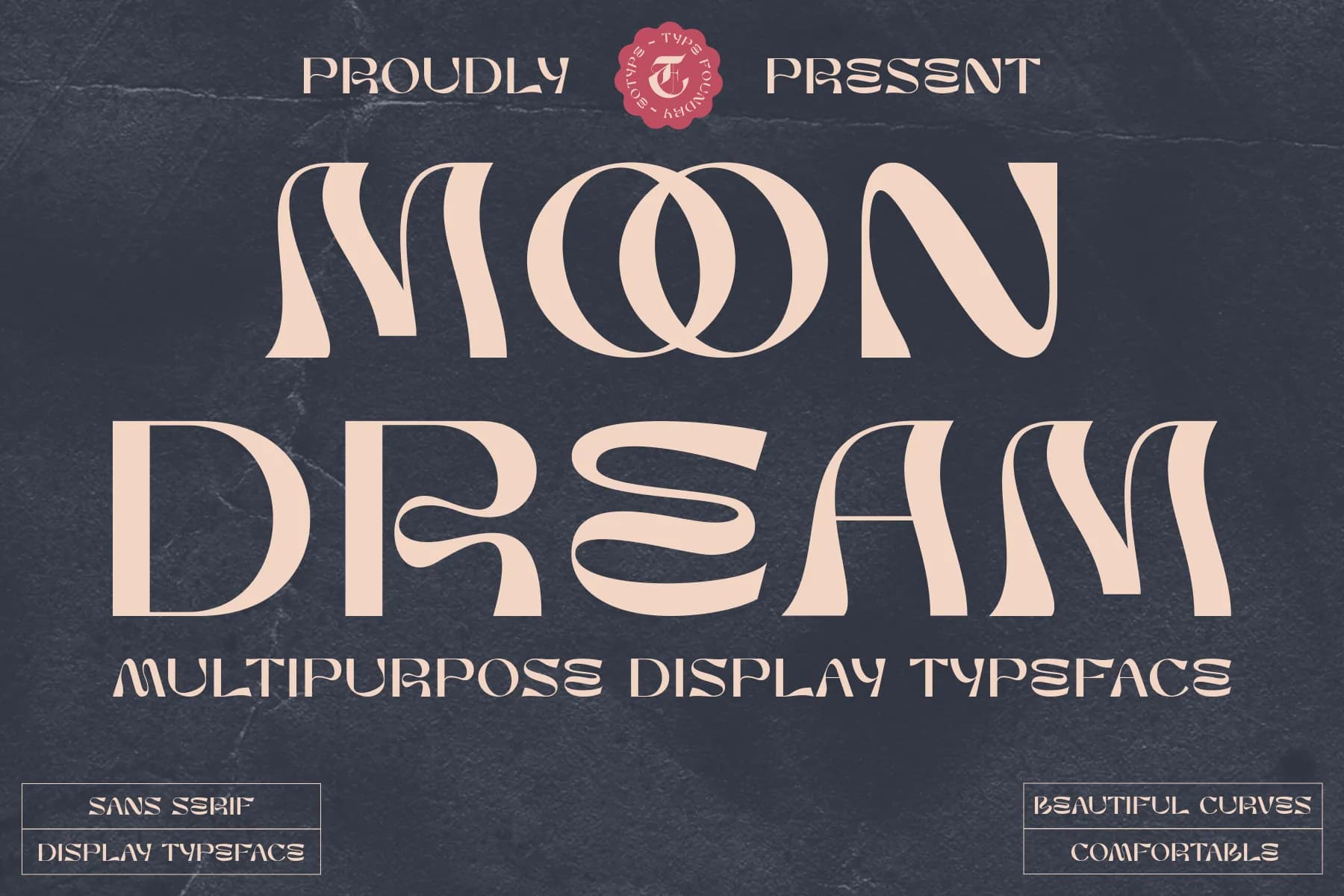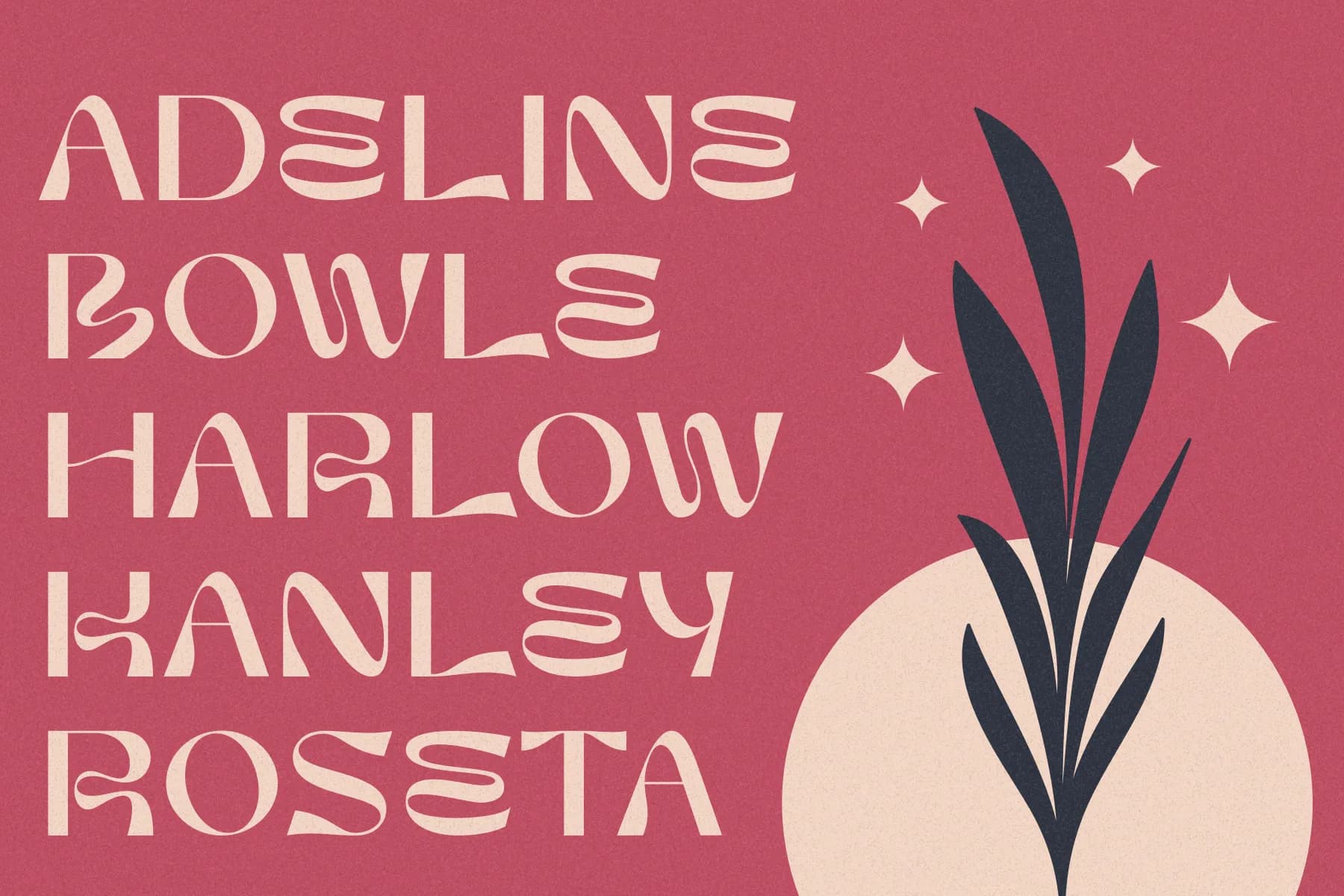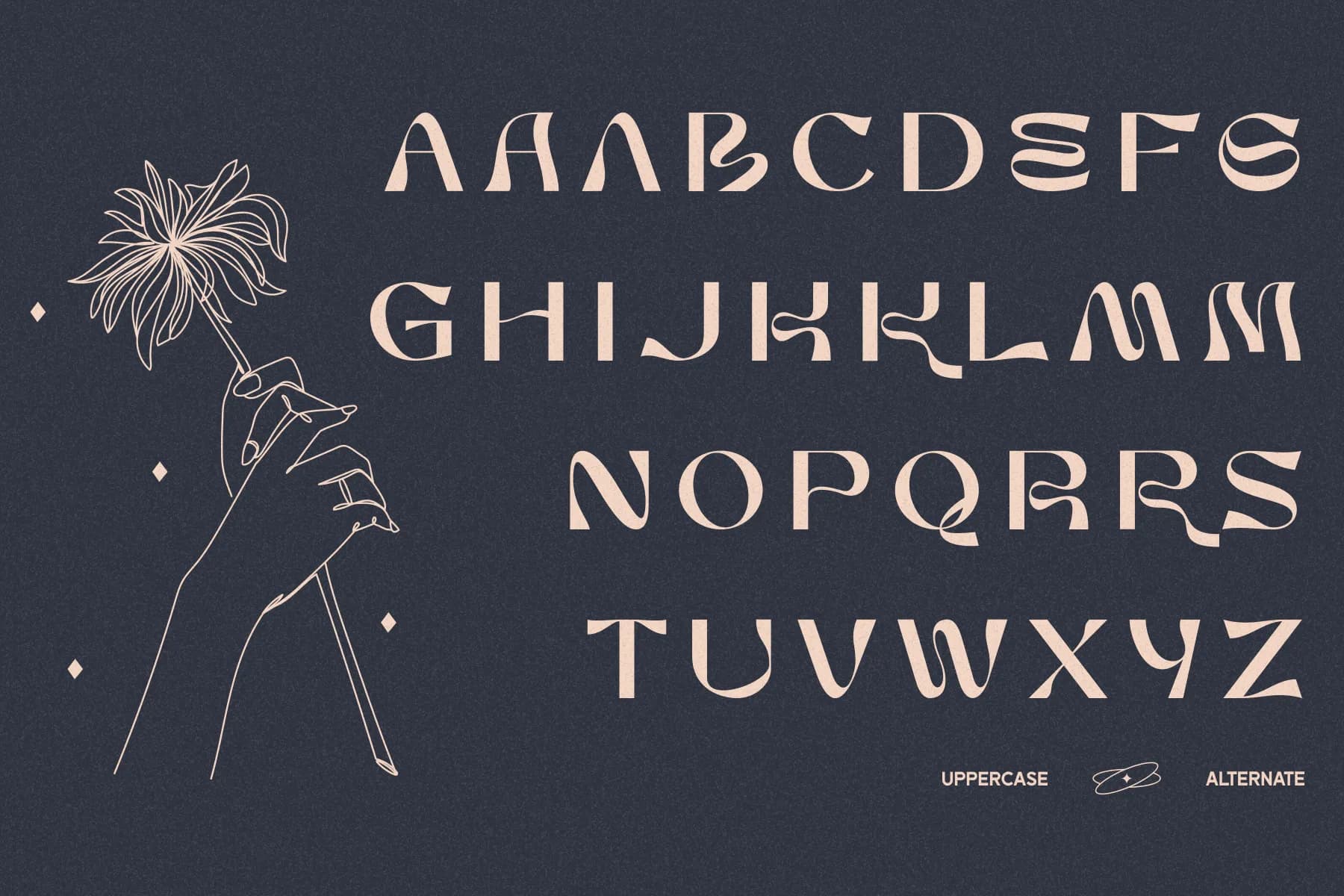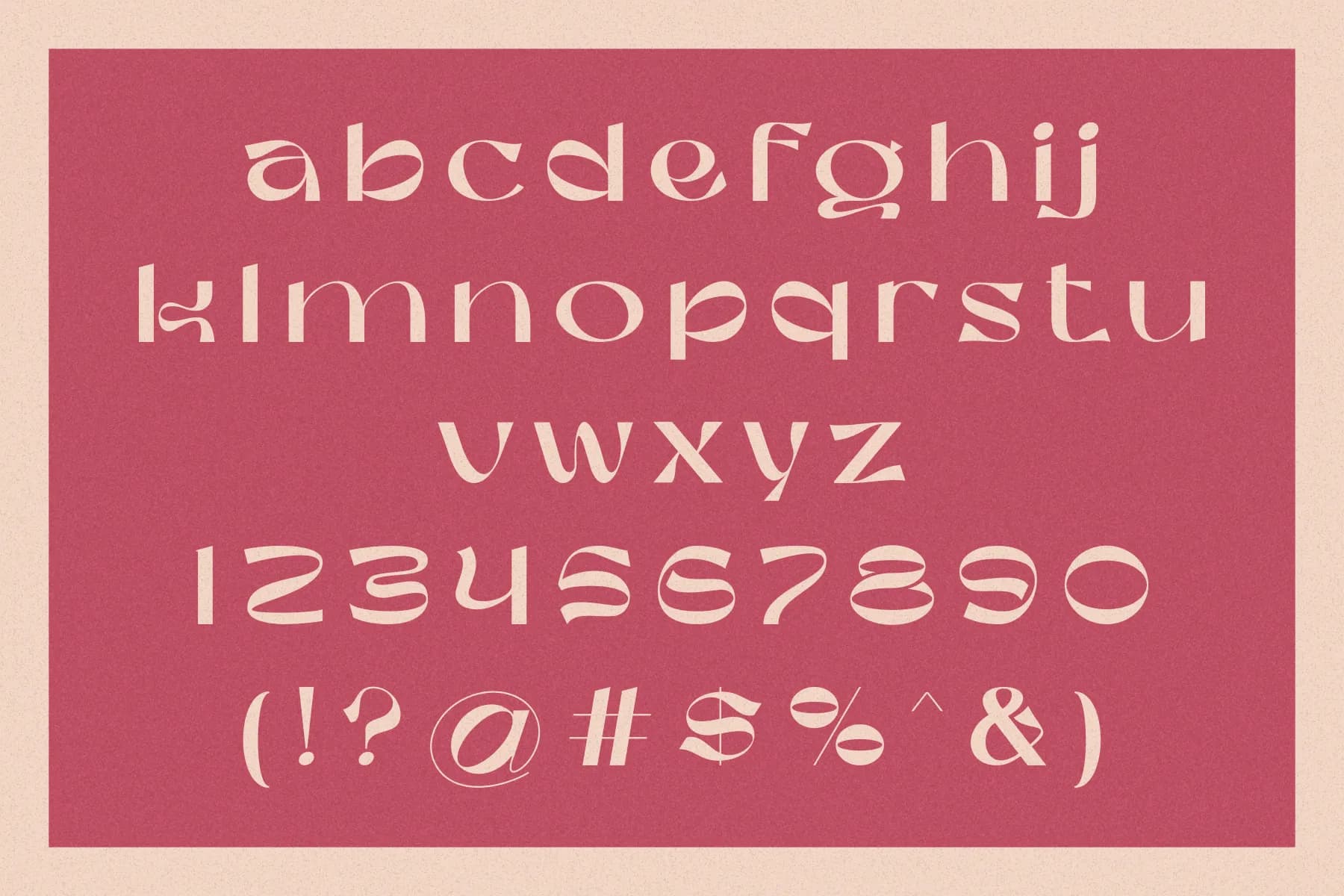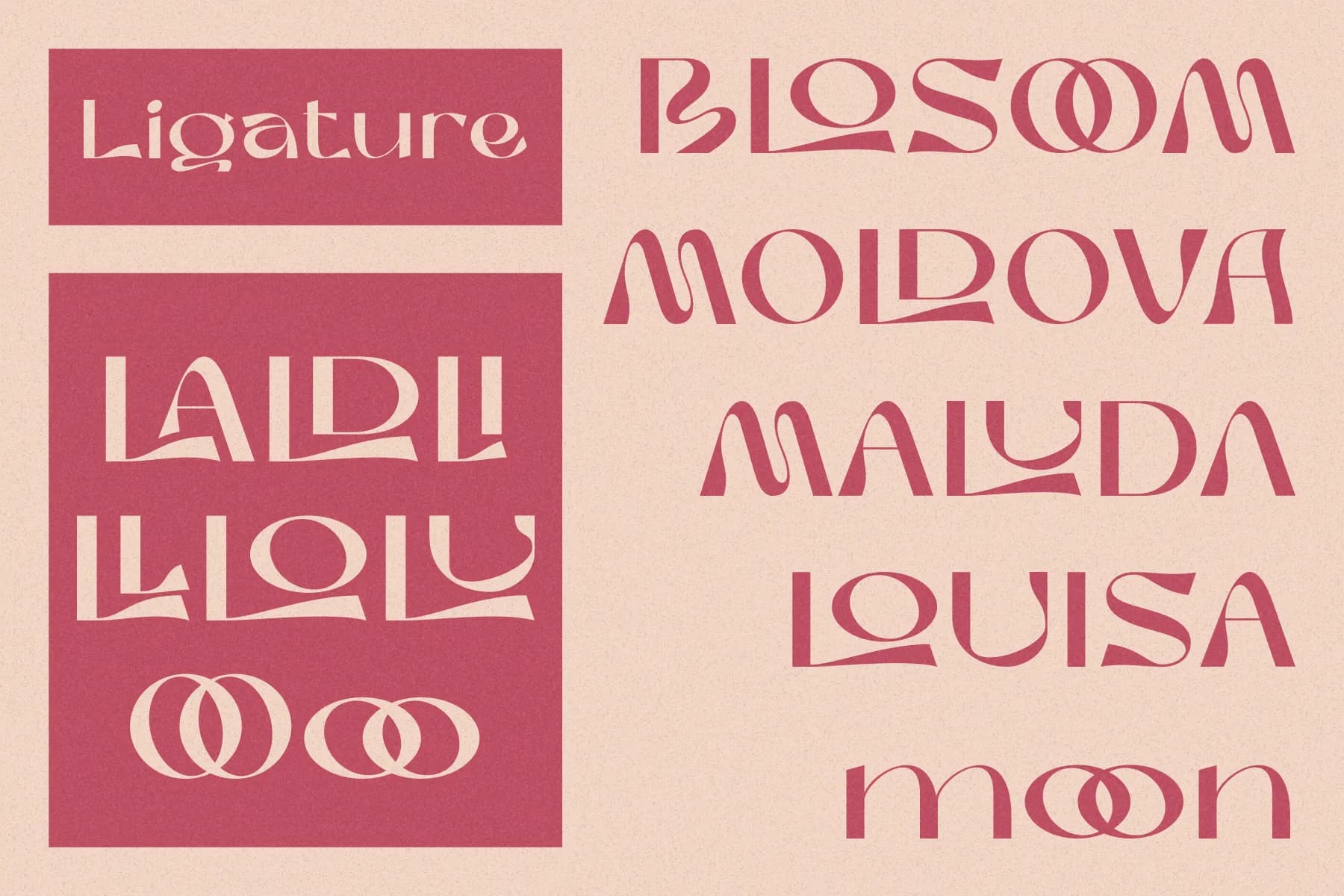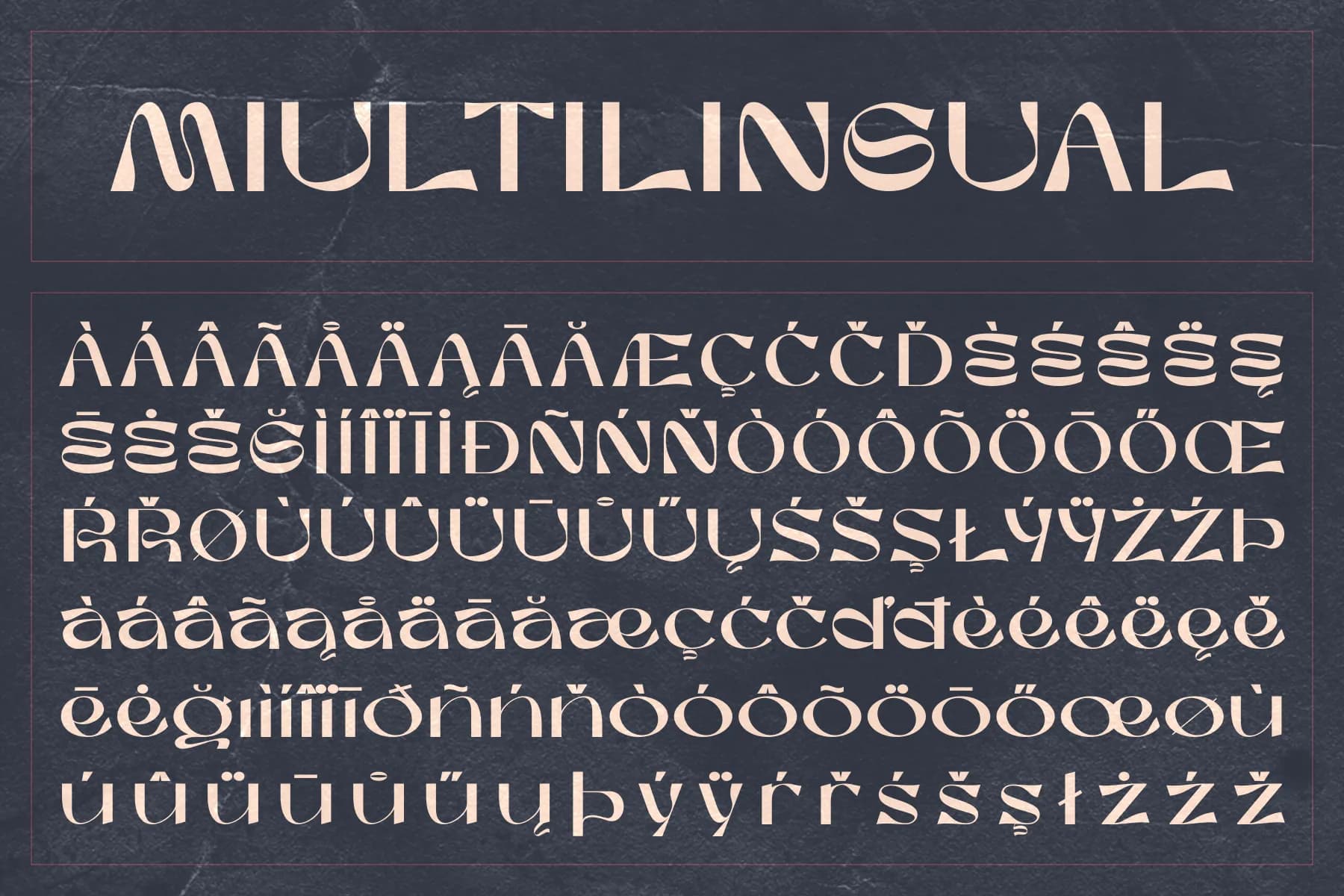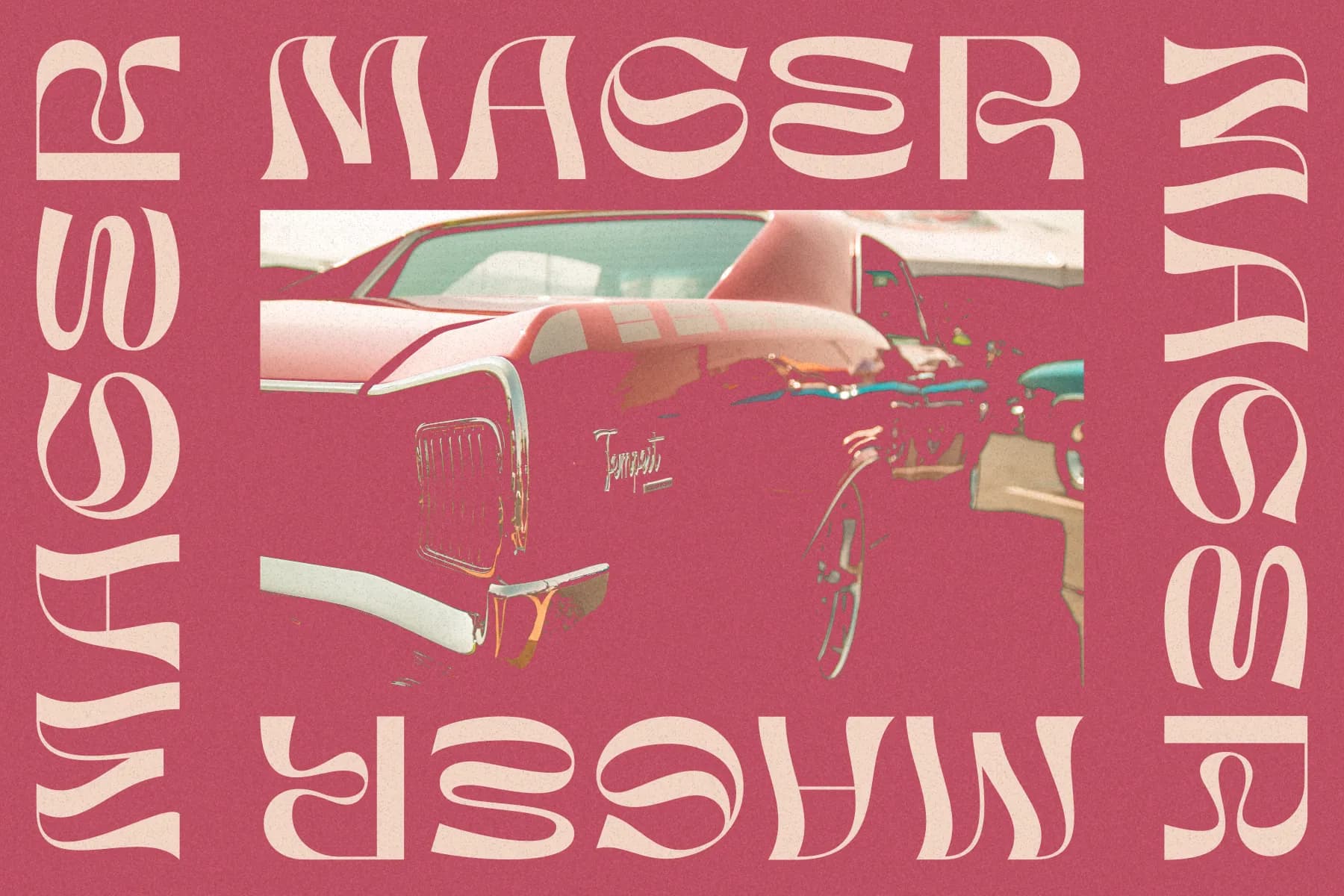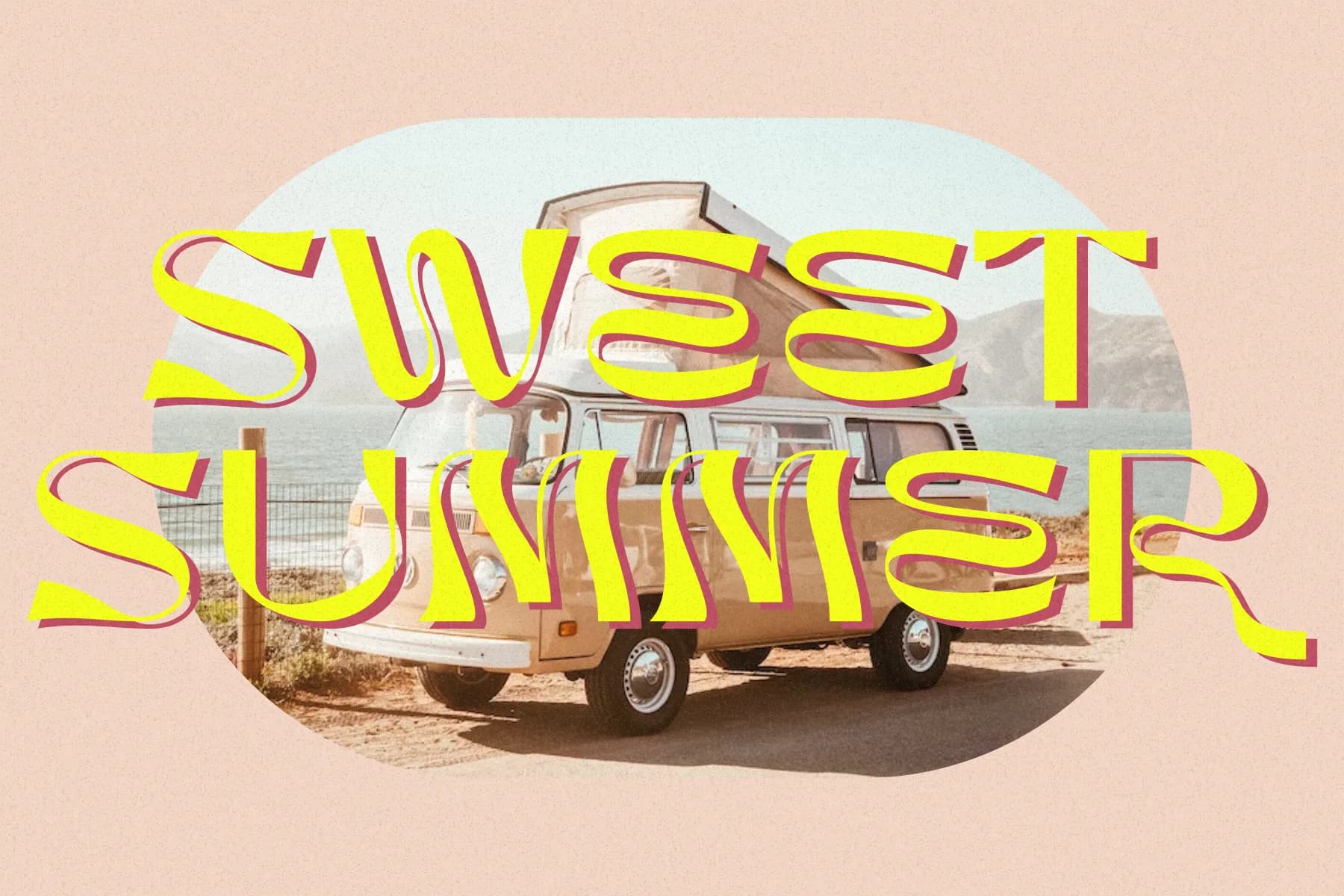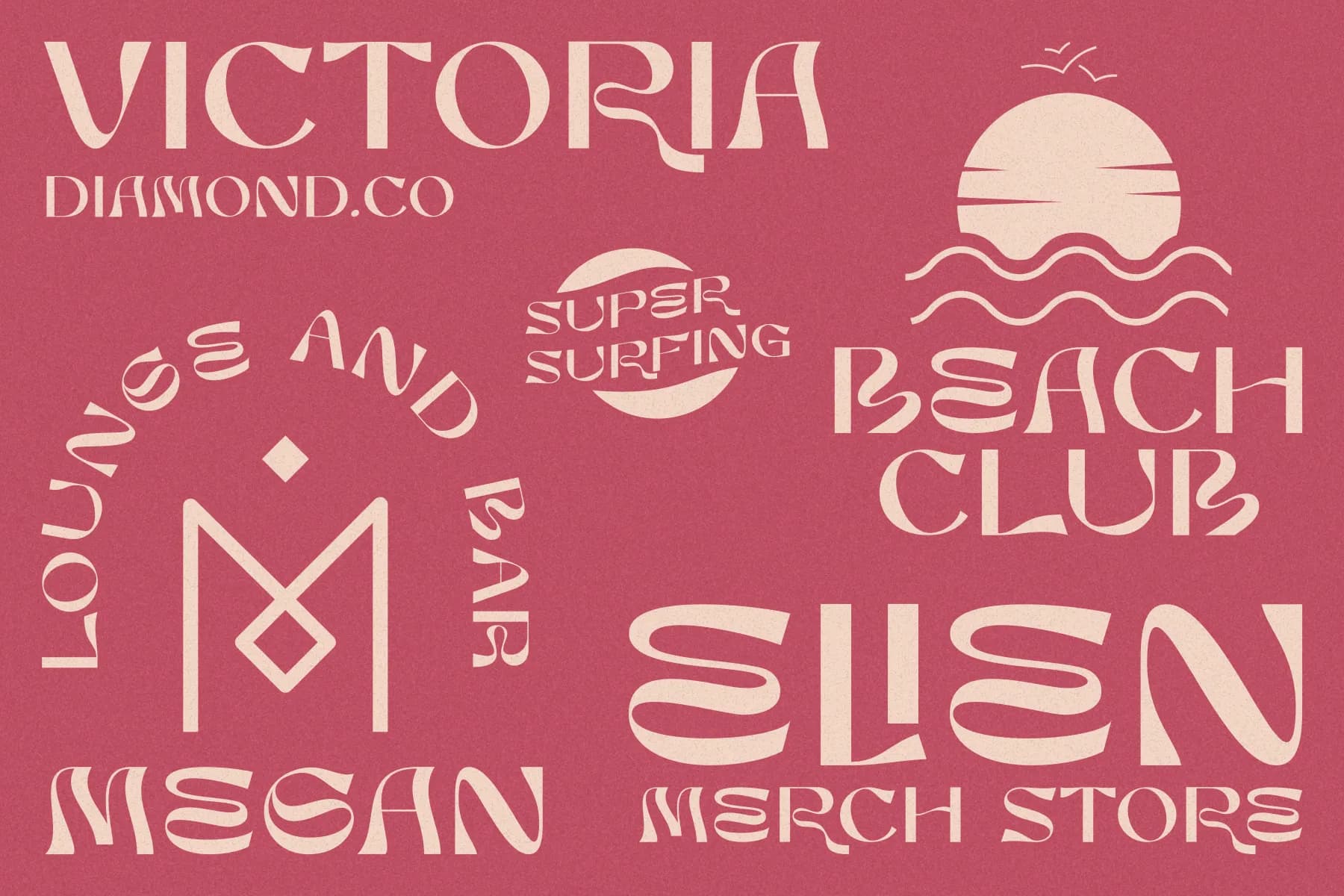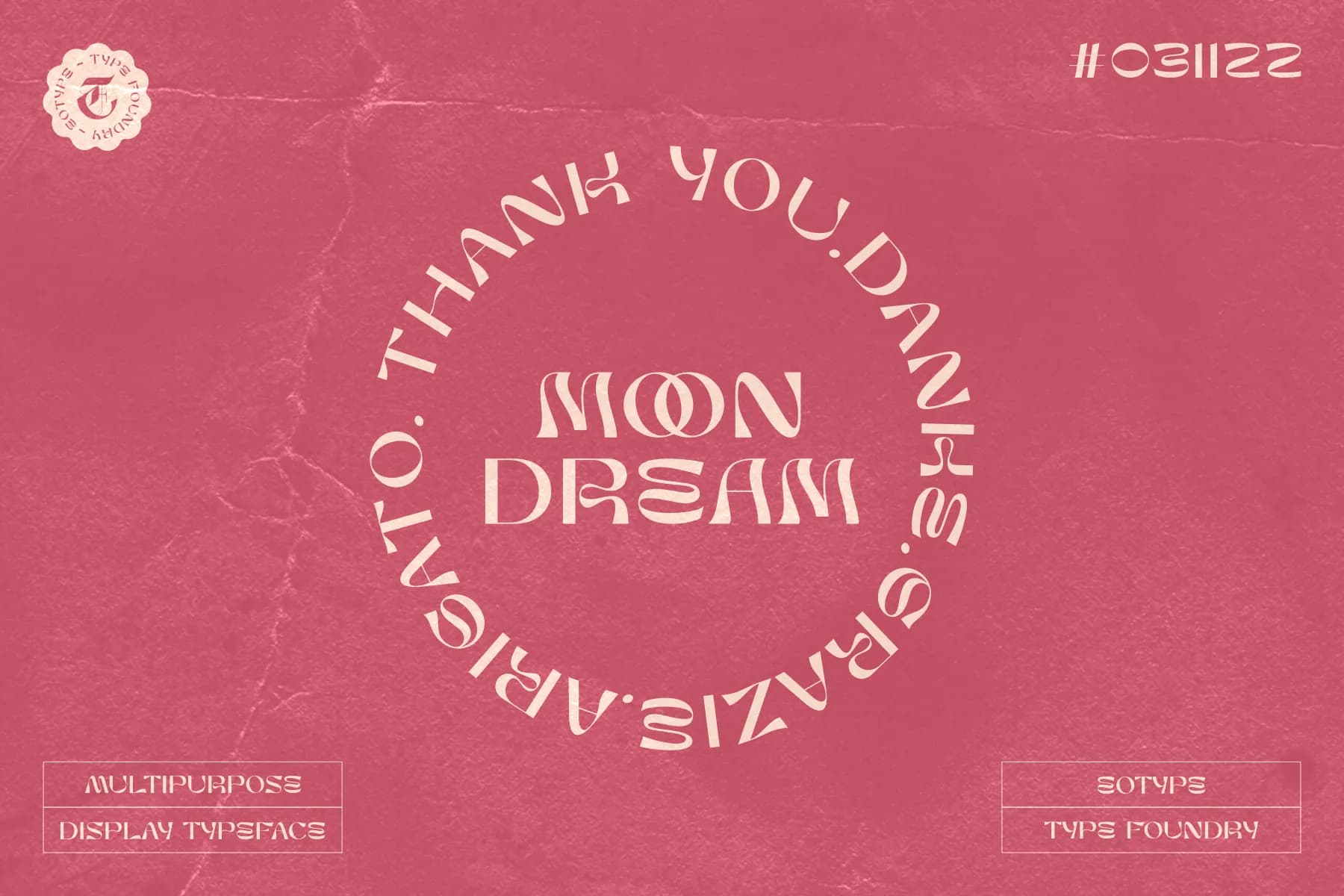
Moon Dream Font
Moon Dream is a wide sans serif display font that has beautiful curves. Each end is made slightly rounded giving the impression of a comfortable and friendly. Moon dream provides a collection of glyphs with unique shapes. With alternative styles and ligature features, this font is perfect for complementing various projects.